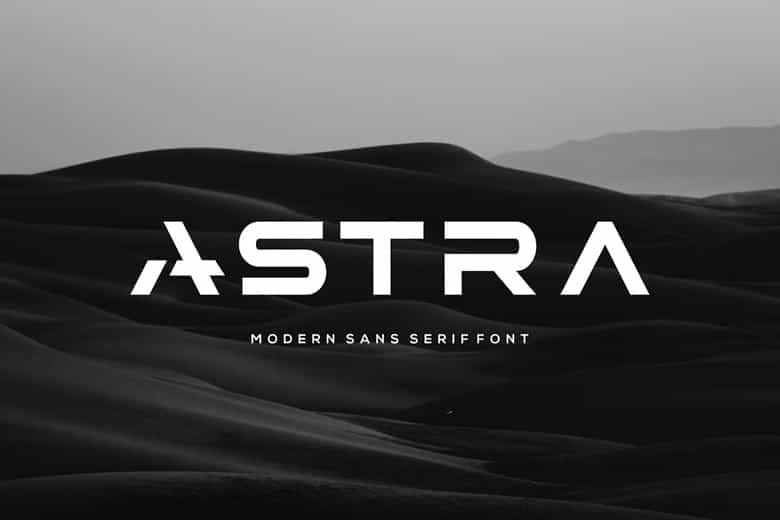
Astra is a logo sans font made to suit modern technology, sci-fi, Hi Tech and similar subject areas. You can use this font for many different projects, including: fashion, magazines, logos, branding, photography, quotes, blog headers, posters, advertisements, postcards, books, websites and so on.